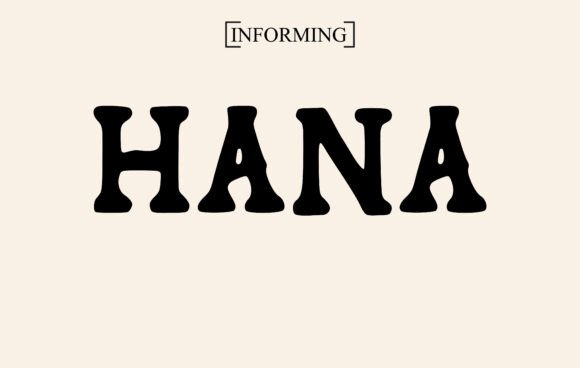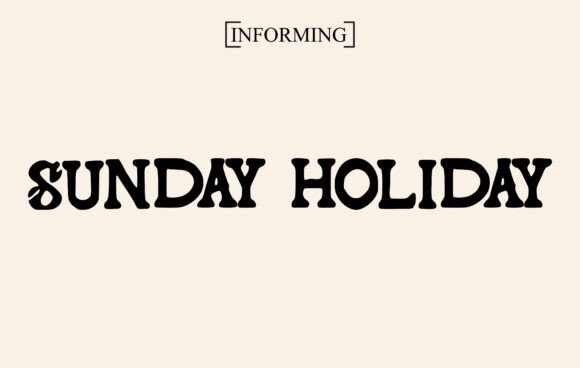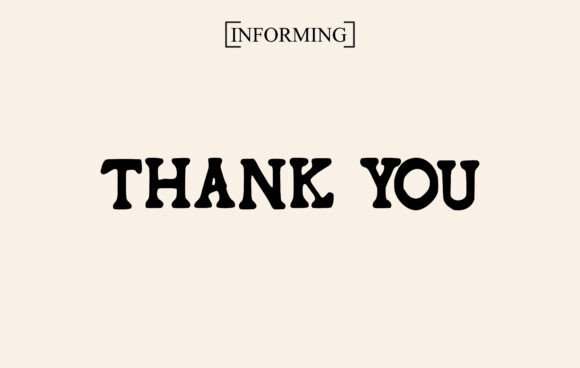
Hana Font
About the Hana Font
Step up your design game with Hana Font, a font that exudes confidence and style. This font is designed to be a true favorite and it has the potential to take your creative ideas to the highest level
Hana Font’s confident, yet approachable personality makes it ideal for headlines, branding projects, and short-form content like posters and social media graphics. Its legibility shines in these applications, effectively conveying key messages. However, its slightly condensed letterforms might prove less effective for lengthy body text or UI elements where optimal readability over many lines is critical.
Pairing Hana Font with a clean sans-serif like Lato for body copy creates a balanced and modern aesthetic. For a more sophisticated feel, consider a classic serif such as Garamond or a playful script font like Great Vibes as a complementary accent for smaller text elements.
This font’s overall mood is best described as friendly and modern, making it well-suited for brands seeking a bold yet accessible image.
Hana Font Usage Examples
Hana Font Example